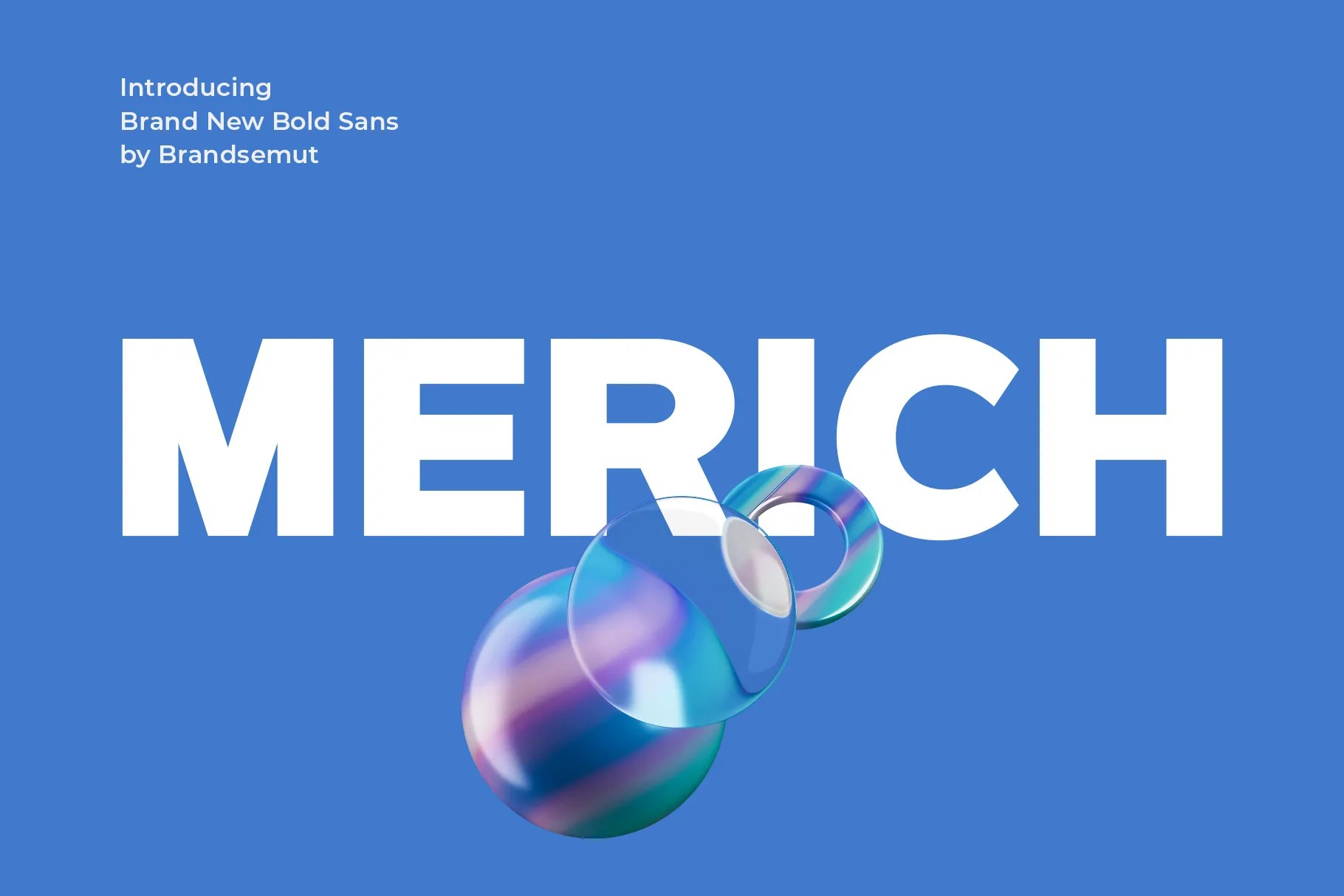
Merich Font
Merich is a sleek and contemporary typeface designed to bring a touch of sophistication to your design projects. Its minimalist and elegant design makes it perfect for a wide range of uses.
Key Features of Merich:
• Modern and Sleek Design: With its clean lines and smooth curves, Merich offers a refined and uncluttered look that enhances any project.
• Versatile Applications: Ideal for use in headings, logos, branding, magazines, product packaging, and invitations, Merich adapts to various design needs with ease.
• Elegant Touch: The font’s sophisticated design adds an extra layer of class, making your projects stand out with a polished appearance.
Ideal Uses for Merich:
• Headings and Titles: Create impactful headings and titles that exude modern elegance with Merich.
• Branding and Logos: Perfect for developing memorable logos and branding materials that convey a sense of professionalism and style.
• Product Packaging and Invitations: Add a touch of refinement to product packaging and invitations with Merich‘s elegant aesthetic.